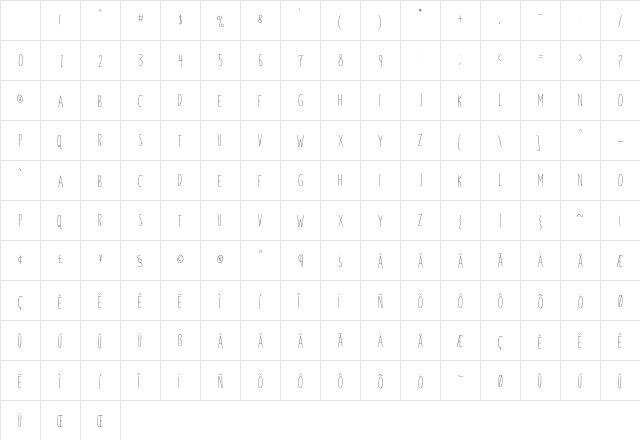
Windsor is a composed and adaptable typeface that performs quietly and consistently across a wide range of design contexts.
Pro Tip: Use Windsor in both headline and body roles to test its range before committing to a single application.